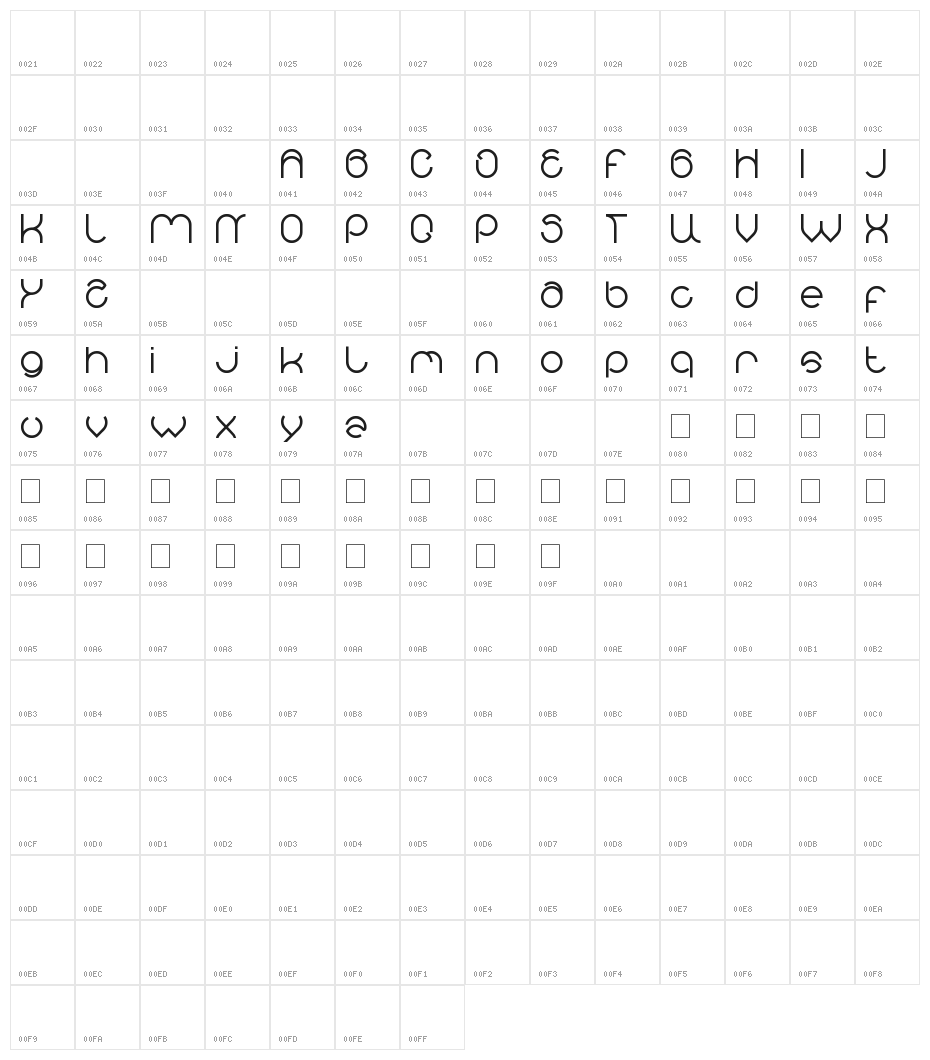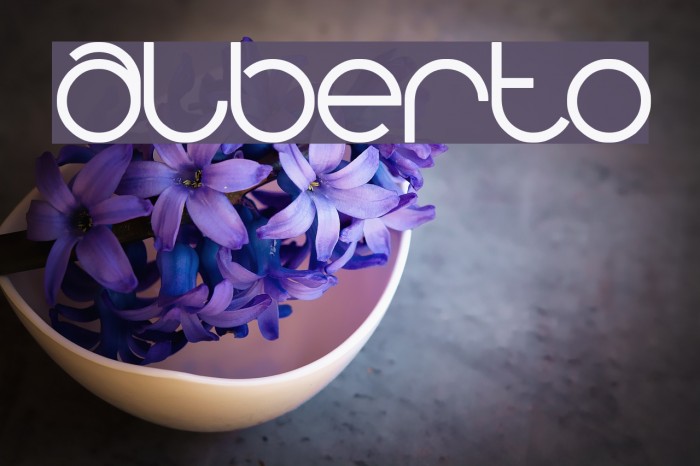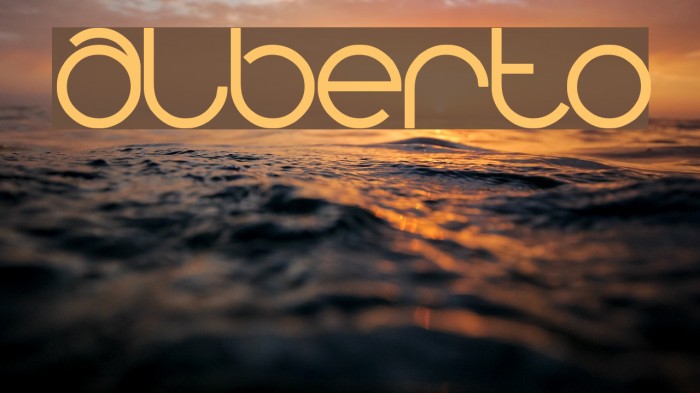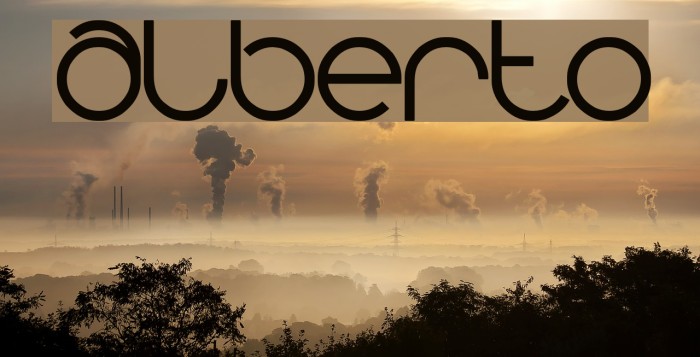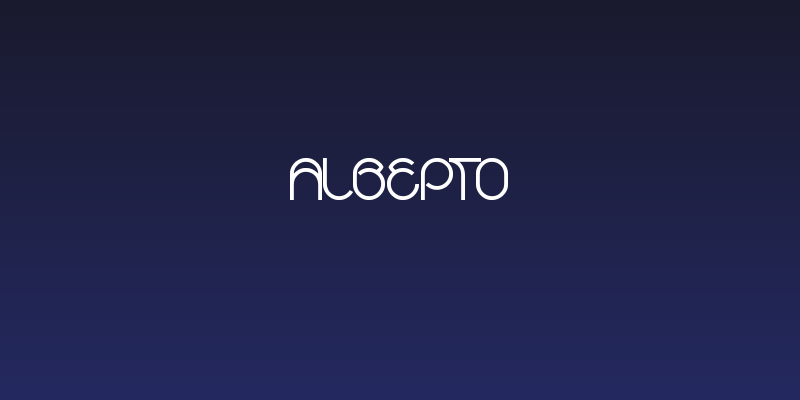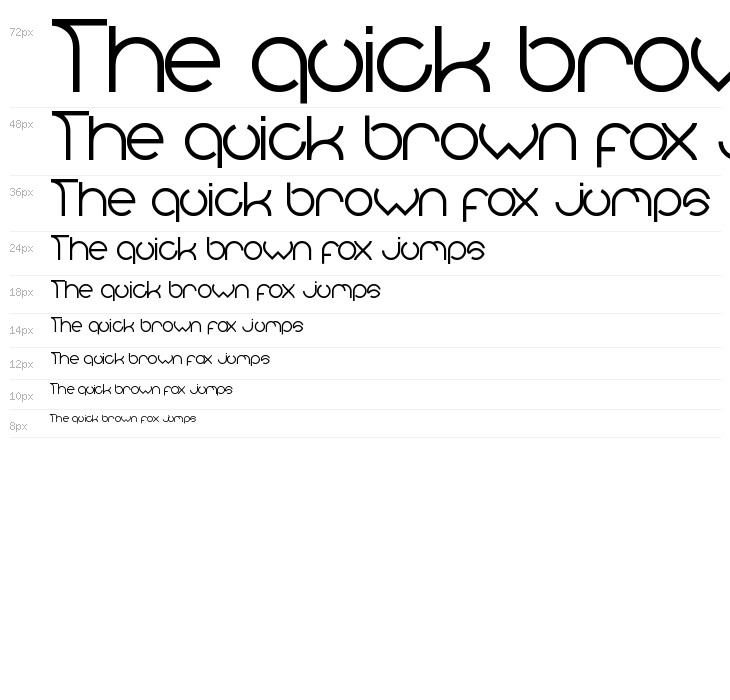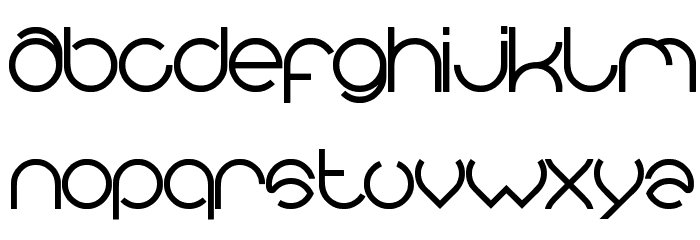
alberto Font
alberto Description
This font features a modern and sleek design with geometric elements that create a futuristic feel. The characters are formed with clean, continuous lines and rounded edges, giving it a smooth and fluid appearance. The uppercase letters exhibit a unique blend of curves and straight lines, while the lowercase letters maintain a consistent style with slightly more rounded forms. The overall look is minimalistic yet distinctive, making it suitable for contemporary design projects. The font's uniform stroke width and balanced proportions contribute to its readability and aesthetic appeal.
| Proposed Projects | Ideal for branding, logos, tech-related projects, and modern web design. |